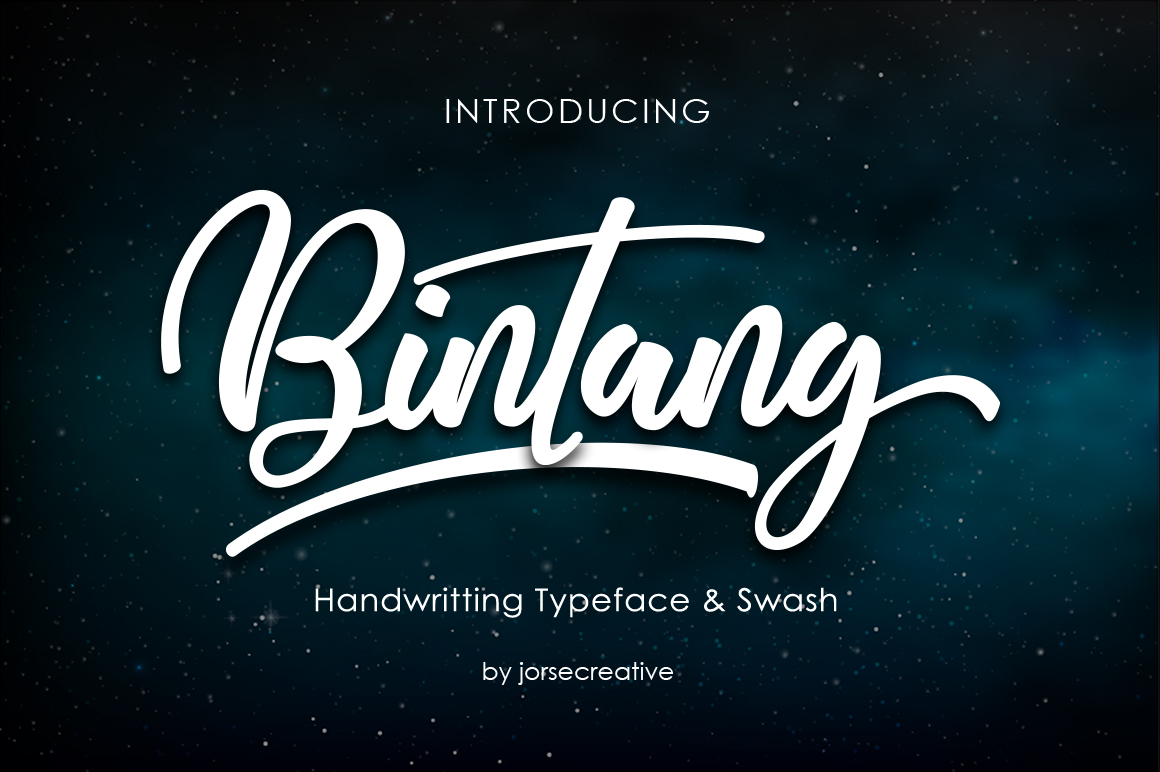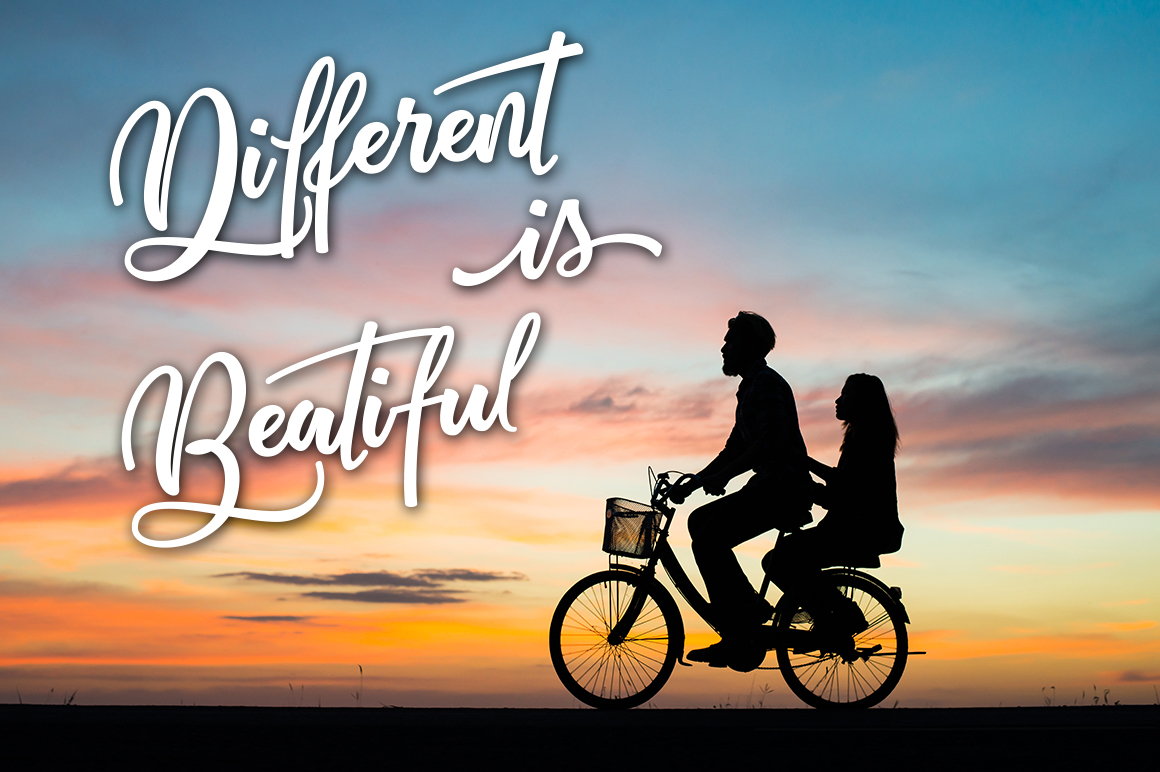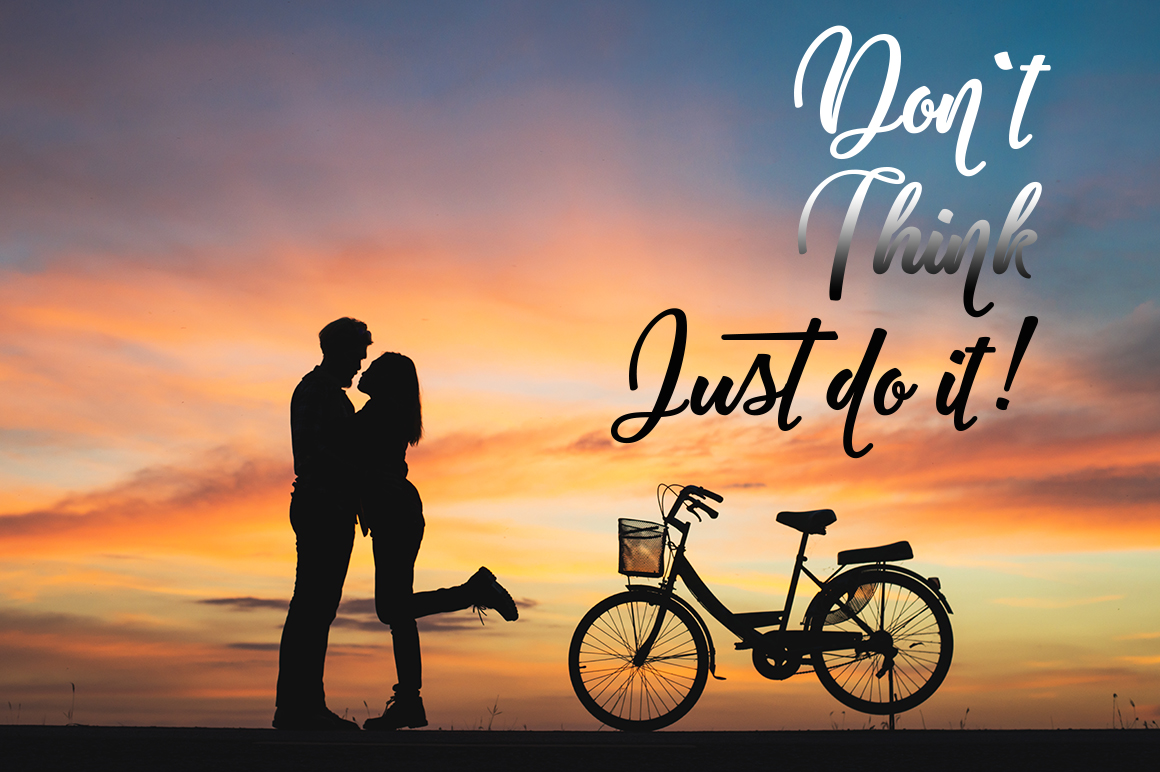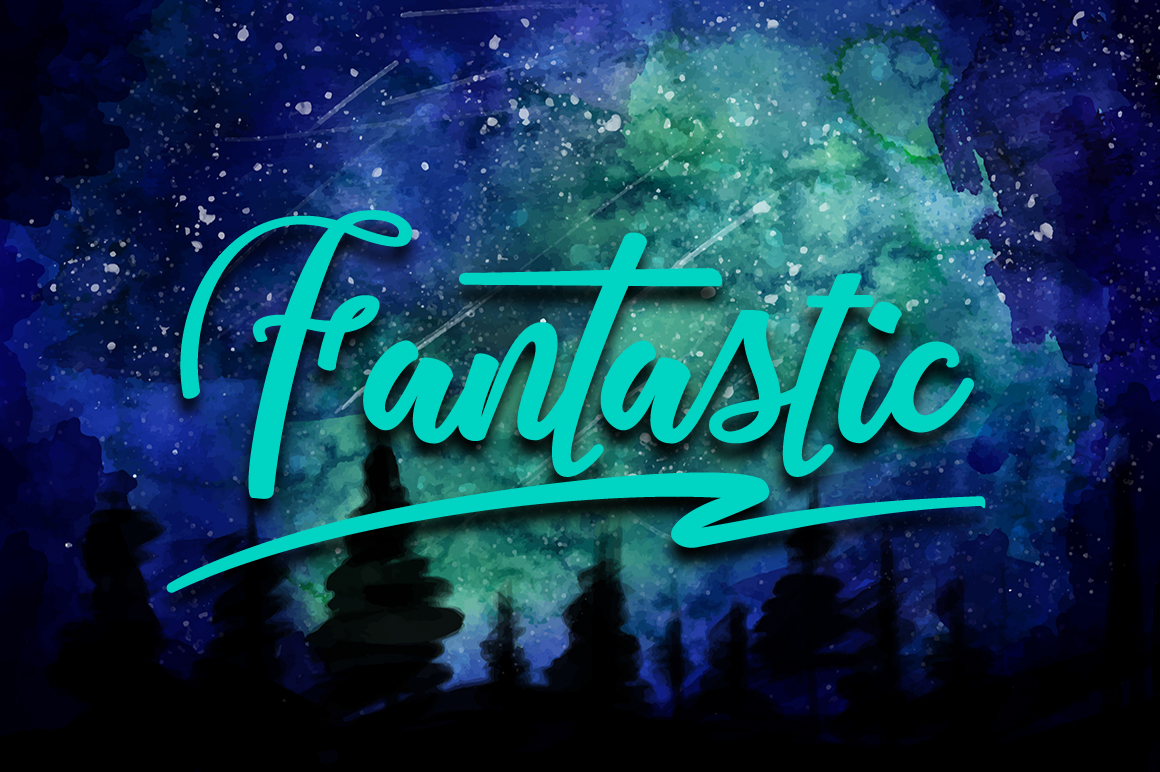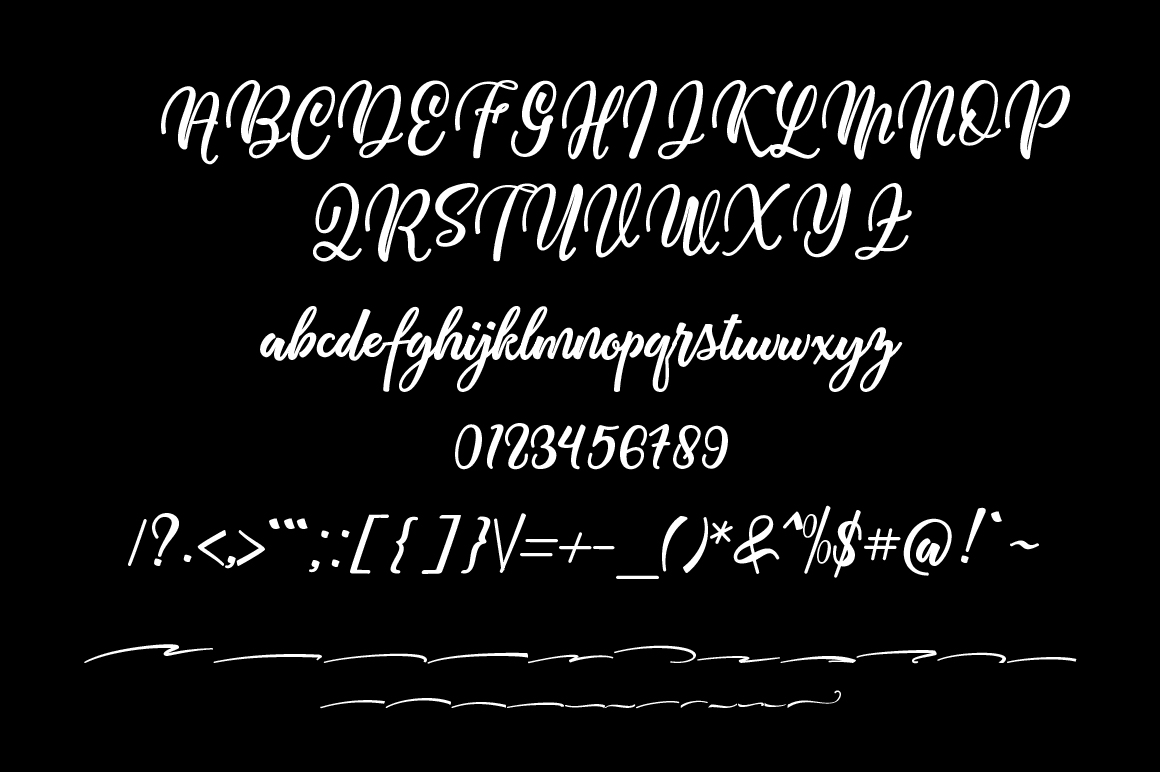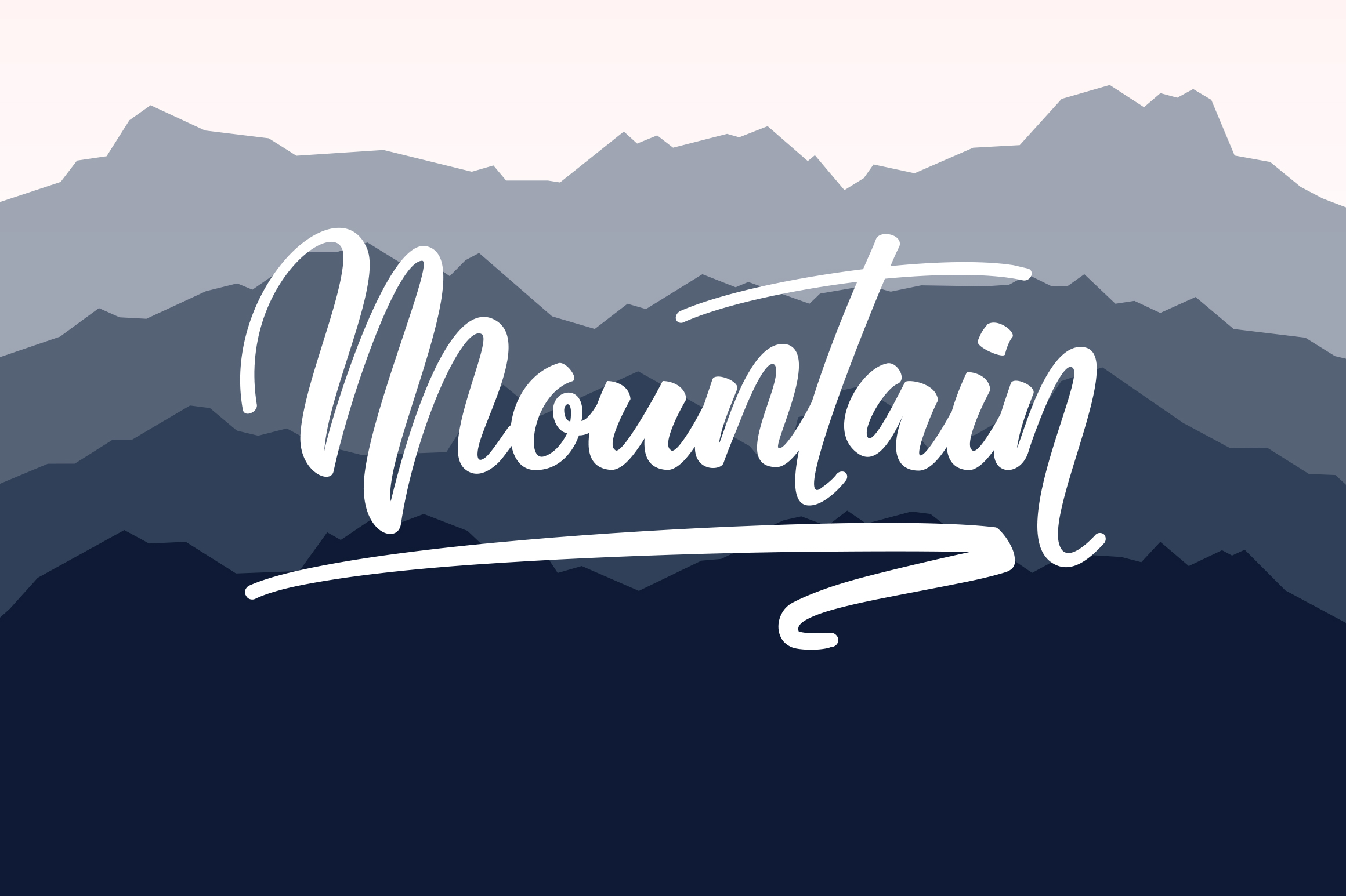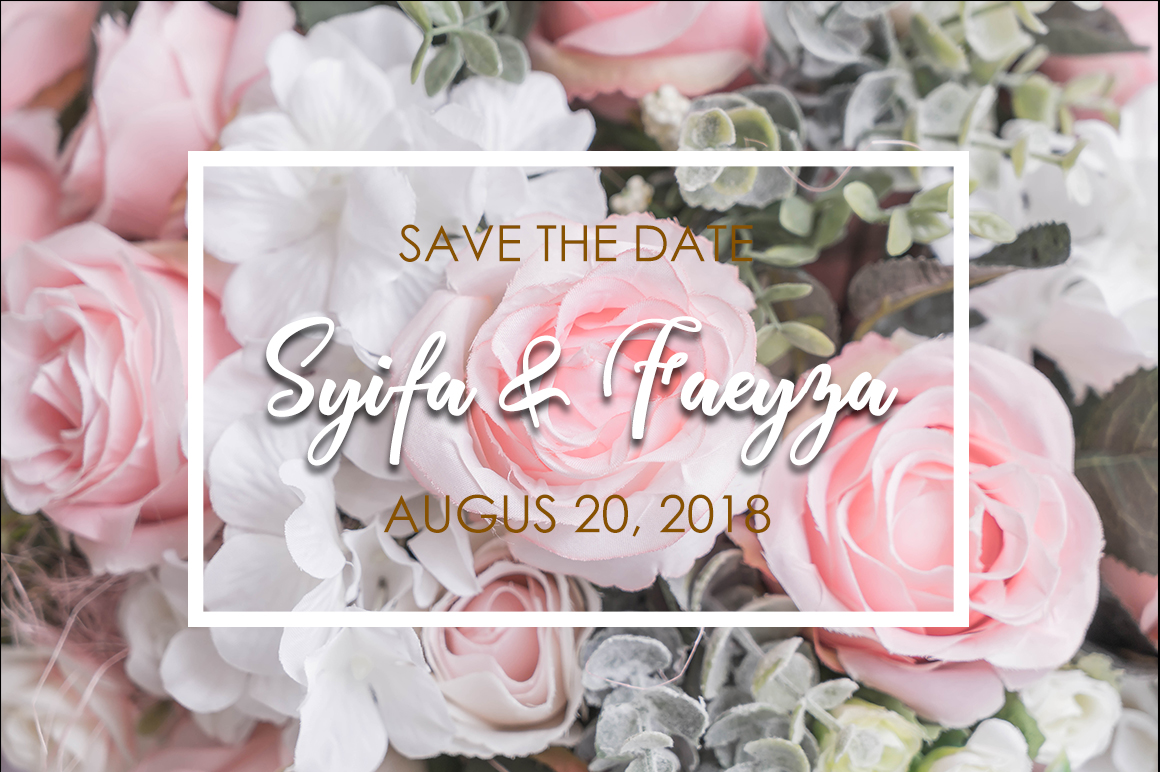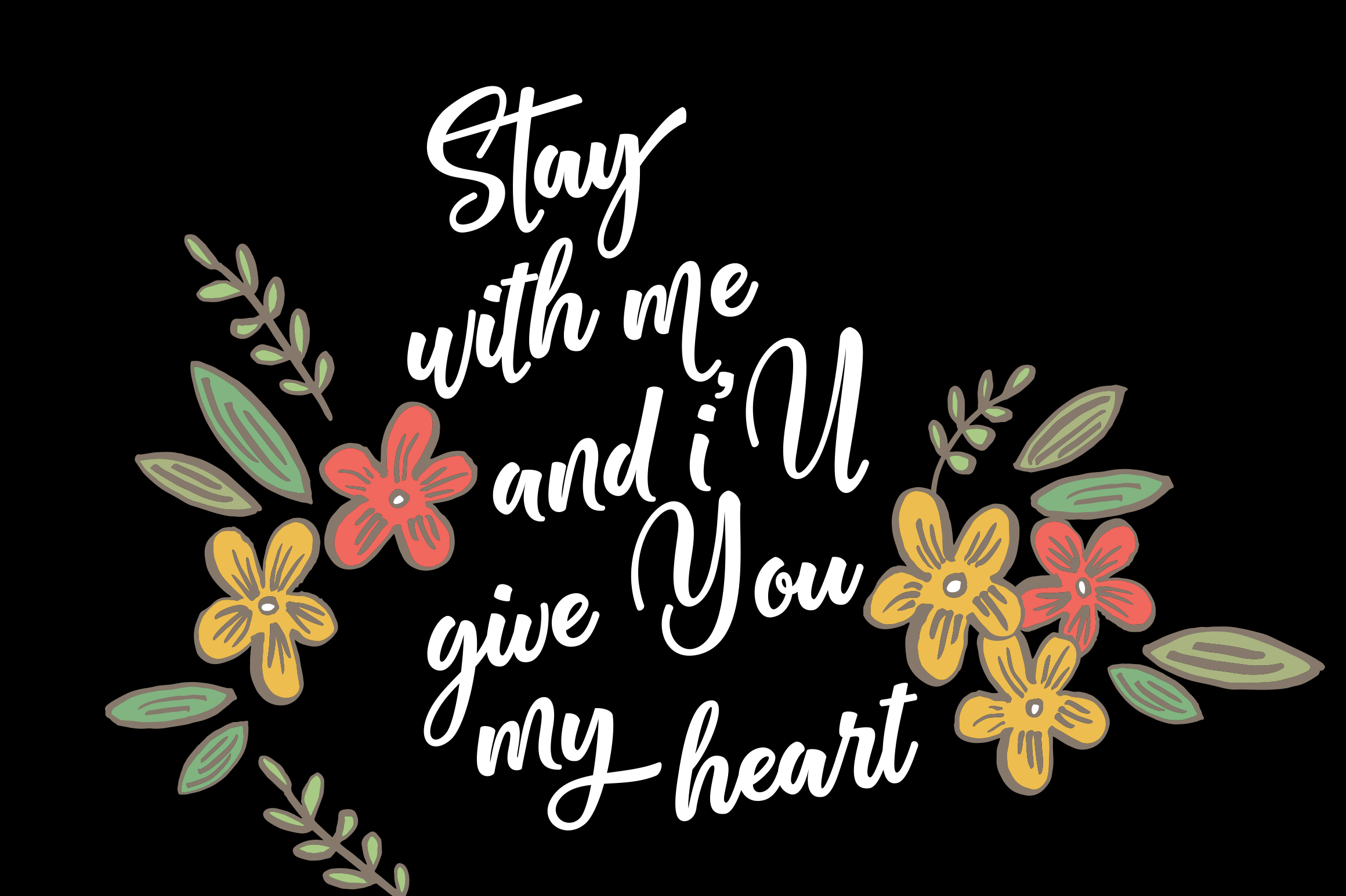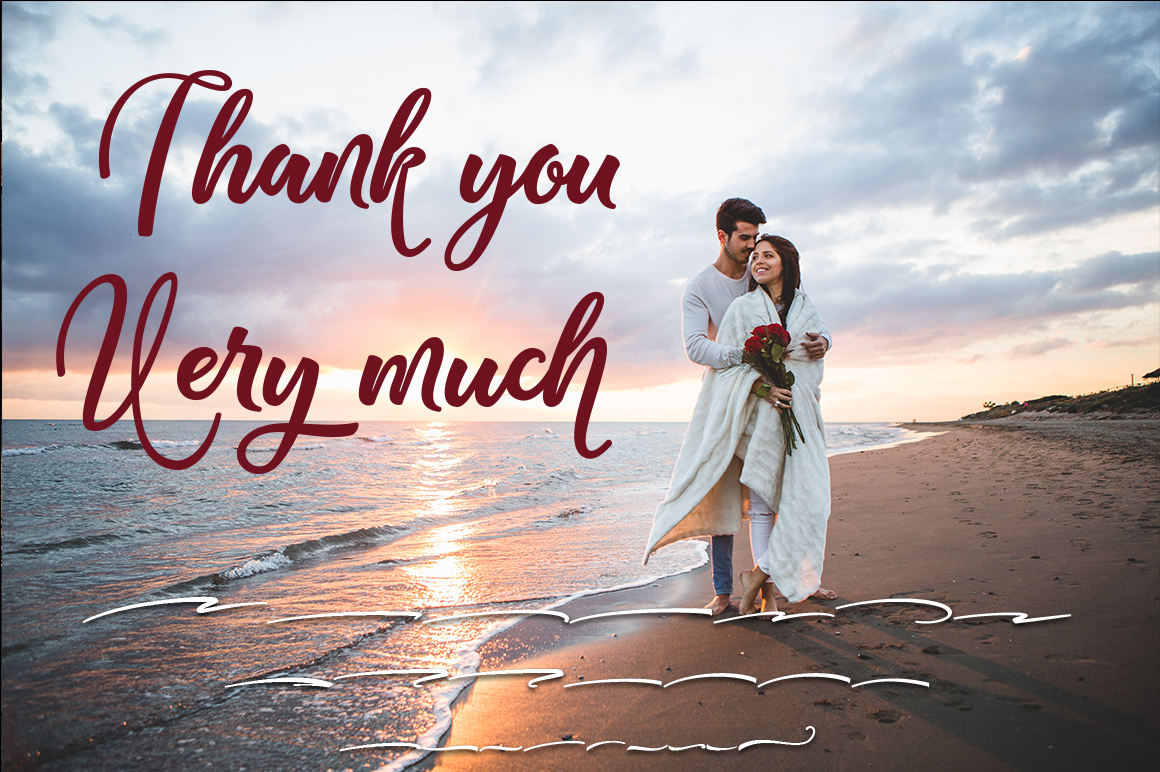
HomeScript FontsBintang Font Script Fonts Bintang Font FacebookXPinterestWhatsApp Bintang Font Poster 2 Bintang Font Poster 3 Bintang Font Poster 4 Bintang Font Poster 5 Bintang Font Poster 6 Bintang Font Poster 7 Bintang Font Poster 8 Bintang Font Poster 9 About Bintang Font Bintang is a stunning brush style script. It’s unique looks are inspired by modern calligraphy. DOWNLOAD NOW People also explored Modster Script Font Billy Whites Font Maximum Font Real Delight Font Gojiau Font Behind Brown Eyes Font Sticky Notes Font Haniman Font Christmas Harmony Font 271 0 TagsBintang Font Previous articleAzkia Script FontNext articleArtzopo Font LEAVE A REPLY Cancel reply Comment: Please enter your comment! Name:* Please enter your name here Email:* You have entered an incorrect email address! Please enter your email address here Website: Save my name, email, and website in this browser for the next time I comment. Personal Use Free Potato Pancakes Personal Use Free Read more about this font Rollayka Personal Use Free Read more about this font Tide Personal Use Free Read more about this font Happy Santa Personal Use Free Read more about this font BLOG Fonts That Capture the Spirit of New York City New York City is more than just a place—it’s an experience, a rhythm, a visual language... Top 7 Google Fonts Alternatives for Faster and Privacy-Friendly Web Design (2025) Best Fonts for T-Shirt Design – Top 2025 Picks Transform Your Website: Elevate Your Typography with 7 Best Web Font Generators